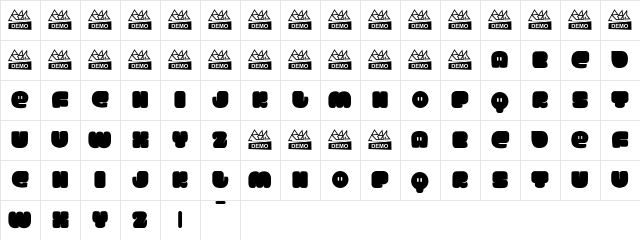
R Regular
Foundry: RODRIGO ARAYA SALAS (RAS) 2011 WWW.BEHANCE.NET/RASDESIGN
Design Context for R
R is a composed and adaptable typeface that performs quietly and consistently across a wide range of design contexts.